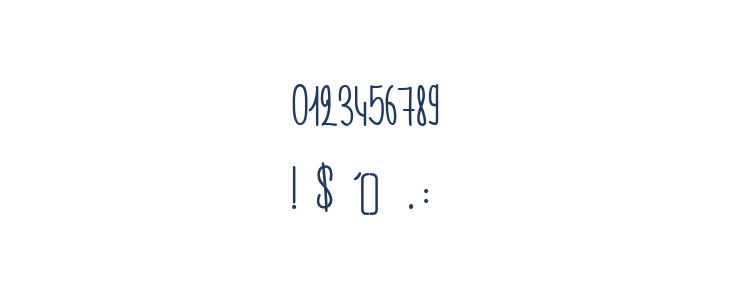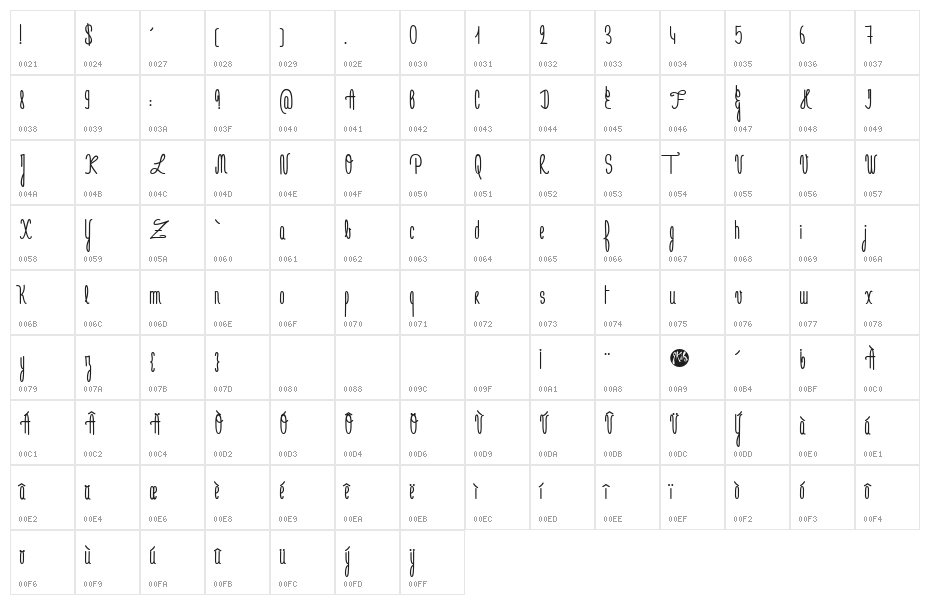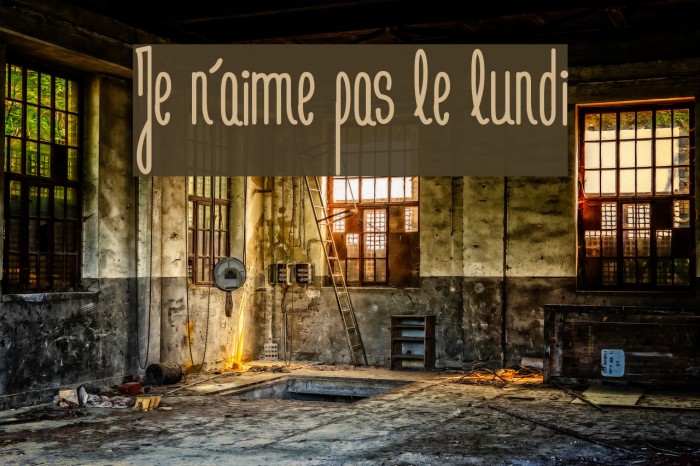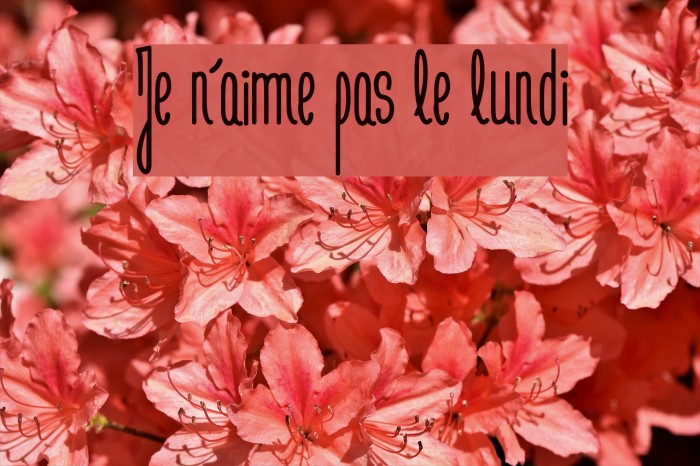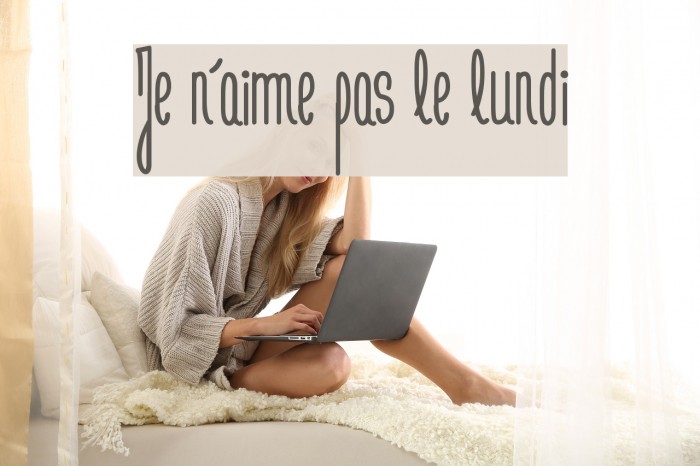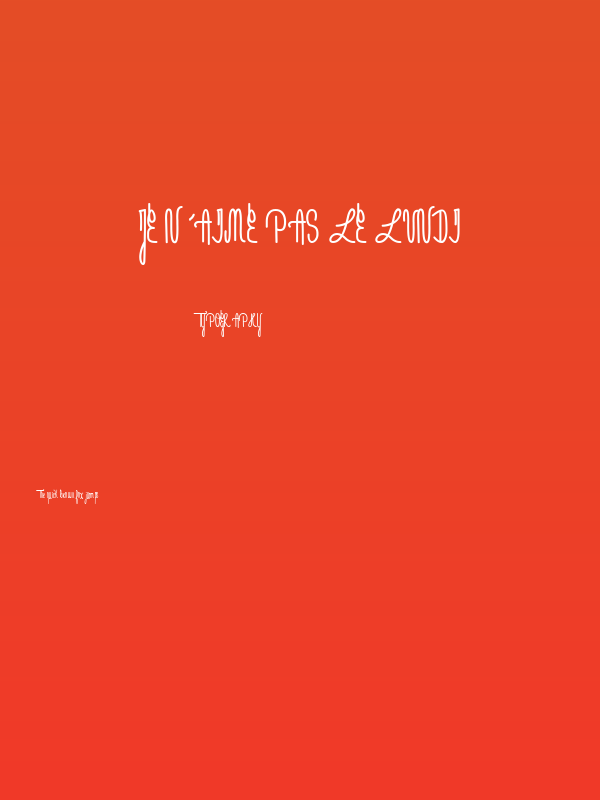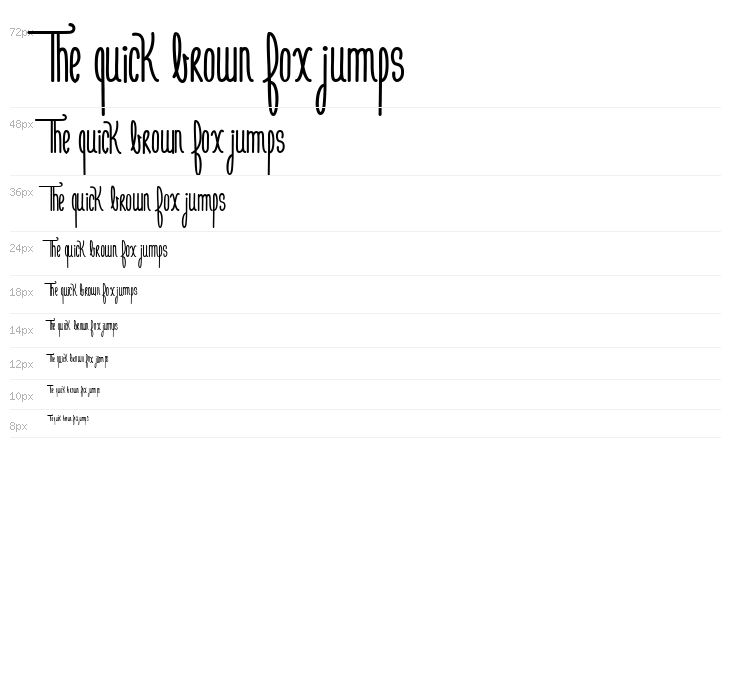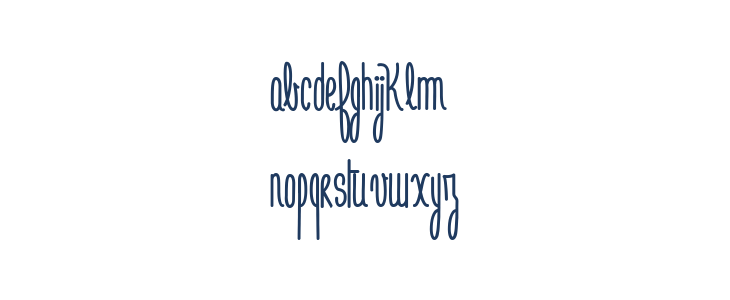
Je n'aime pas le lundi Font
Je n'aime pas le lundi Description
This font features a unique and decorative style, characterized by its elongated and intertwined letterforms. The uppercase letters exhibit a playful yet elegant design, with some characters featuring loops and swirls that add a whimsical touch. The lowercase letters maintain a consistent style, with a slightly condensed appearance that complements the uppercase. The numbers and special characters are designed to match the overall aesthetic, providing a cohesive look. This font's intricate details make it stand out, offering a blend of creativity and sophistication.